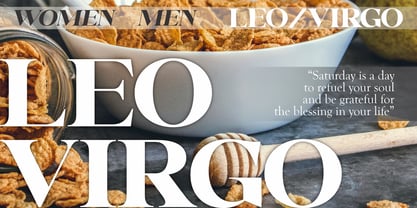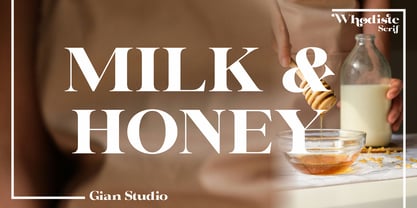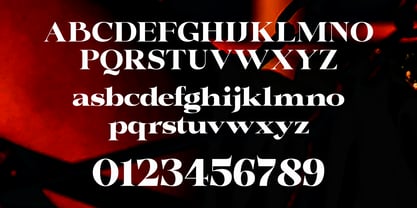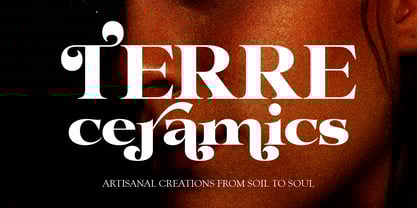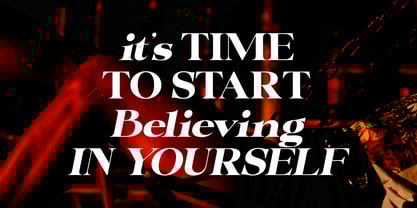
Whodiste Serif
The Whodiste Serif Font Family was designed by Yusliana M Isa and published by Gian Studio. Whodiste Serif contains 2 styles.
Whodiste Serif takes inspiration from serif typefaces common in print media. The letterforms are well-suited for prominent uses such as logos and bold titles due to their distinctive style. The large x-height makes them suitable for tight initials in titles.
Whodiste Serif offers a variety of options and two different styles: Standard and Italic.